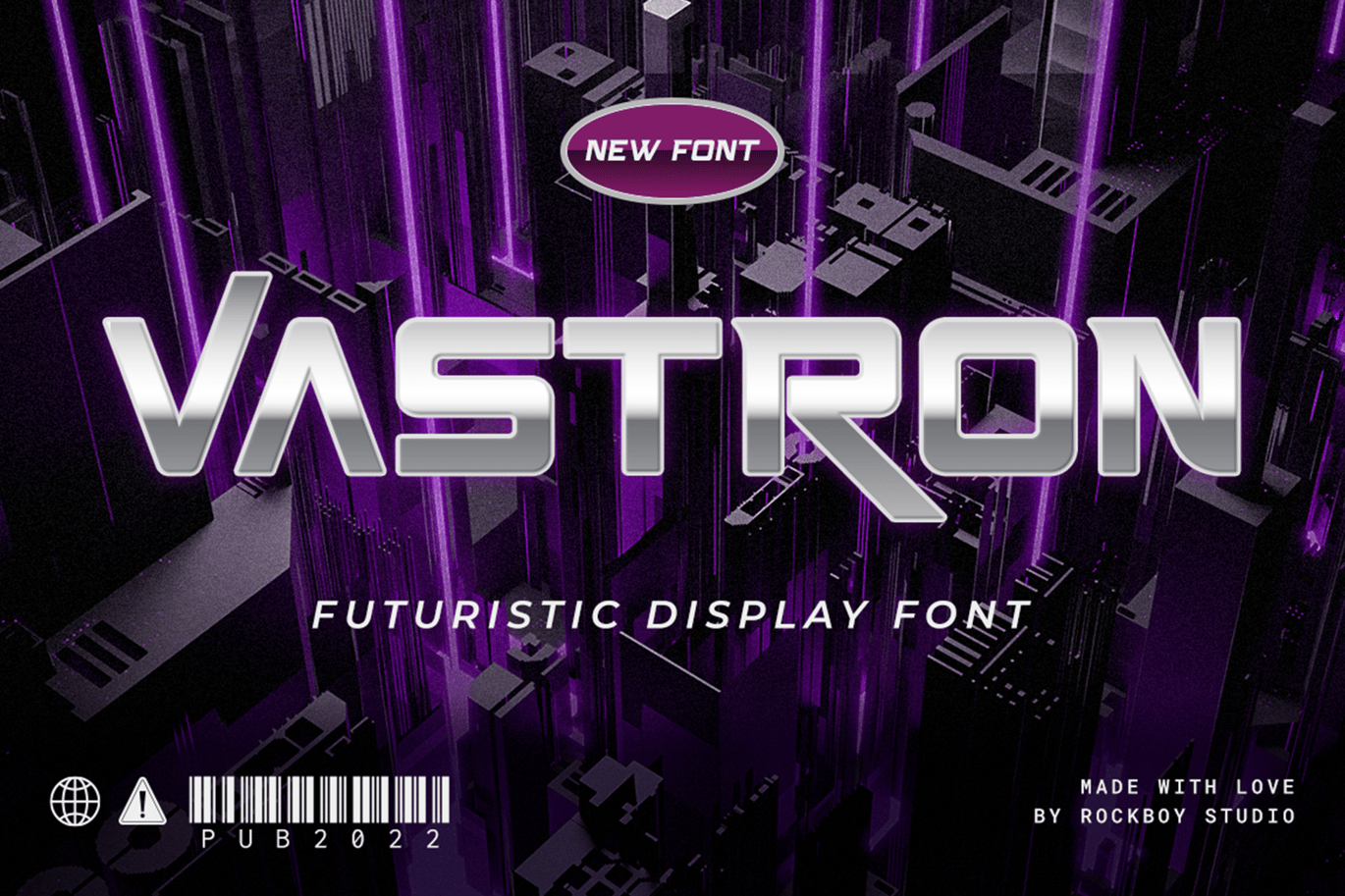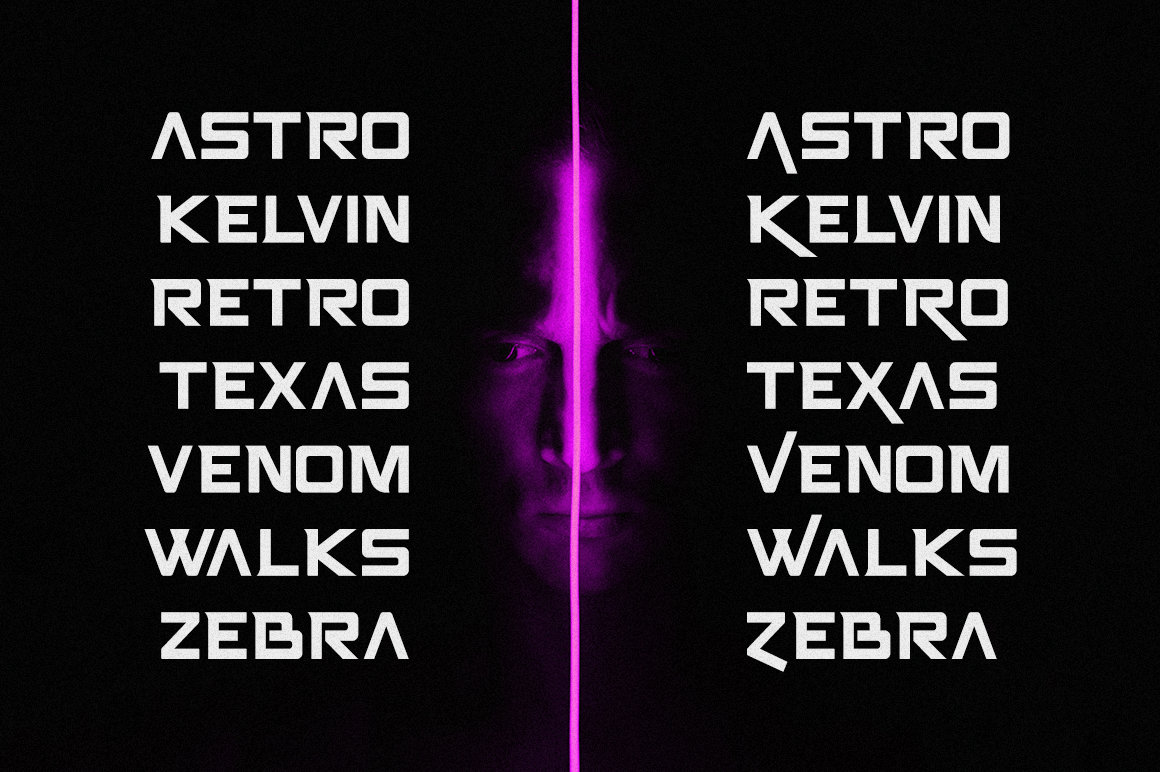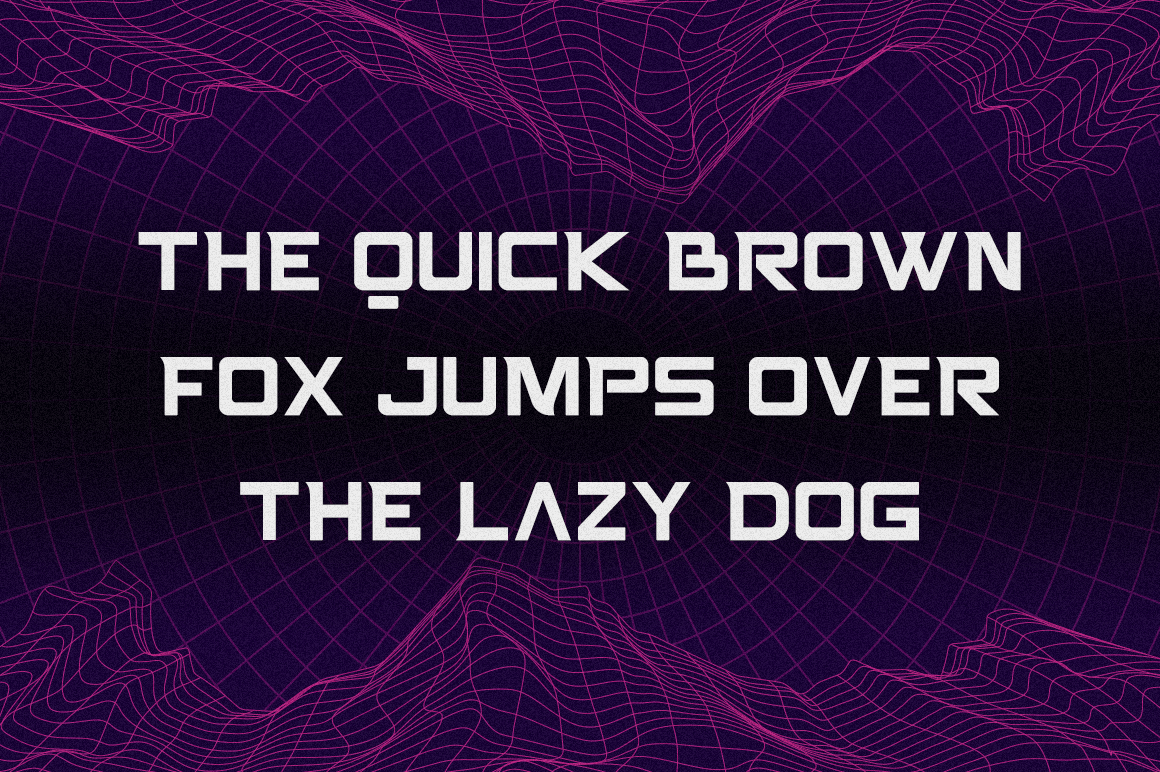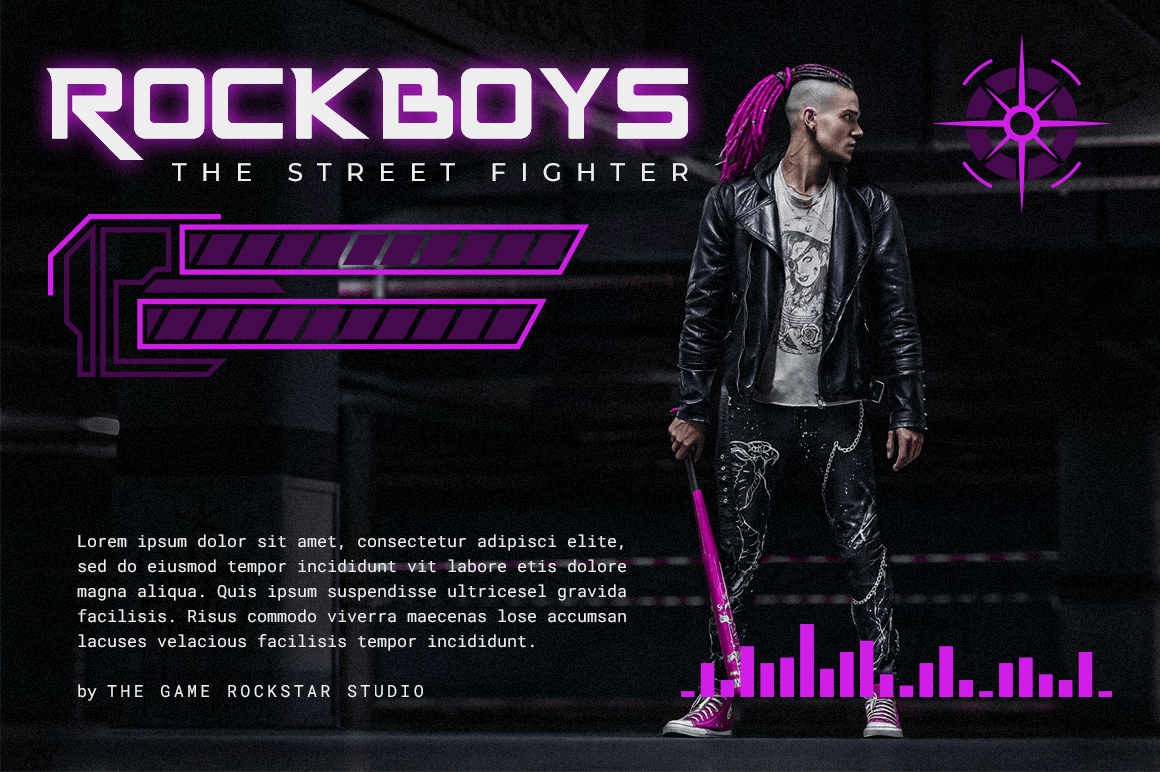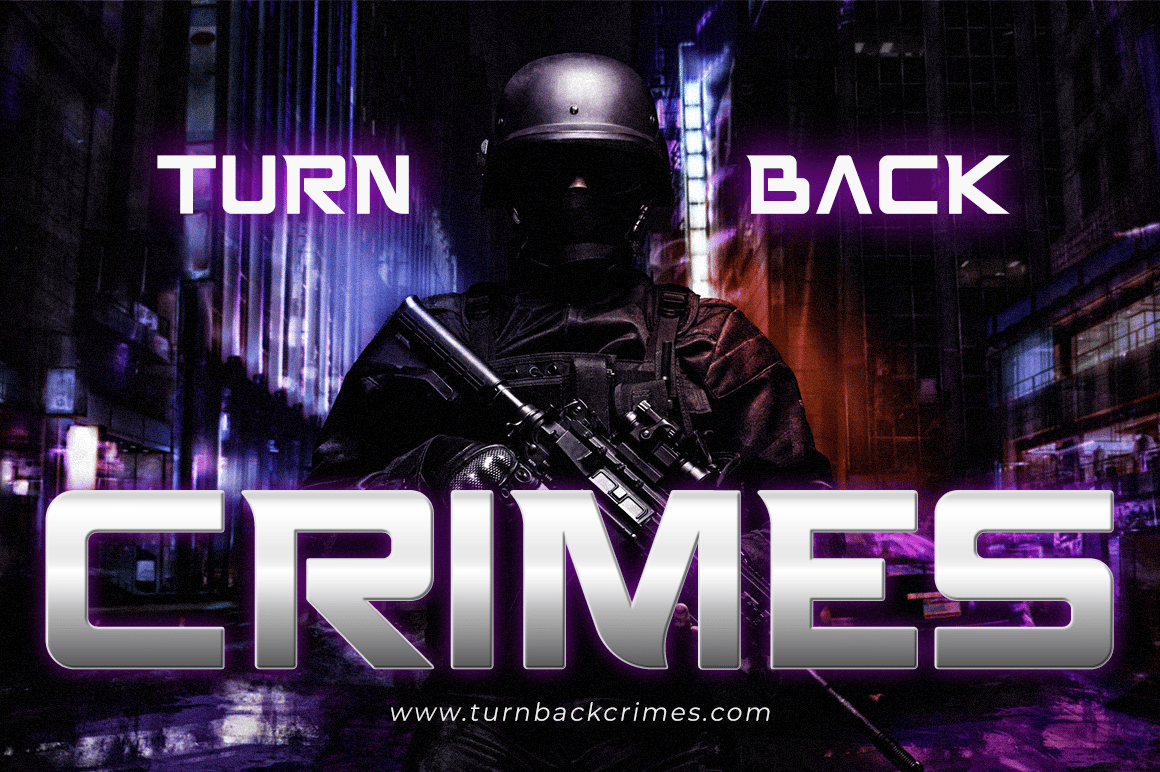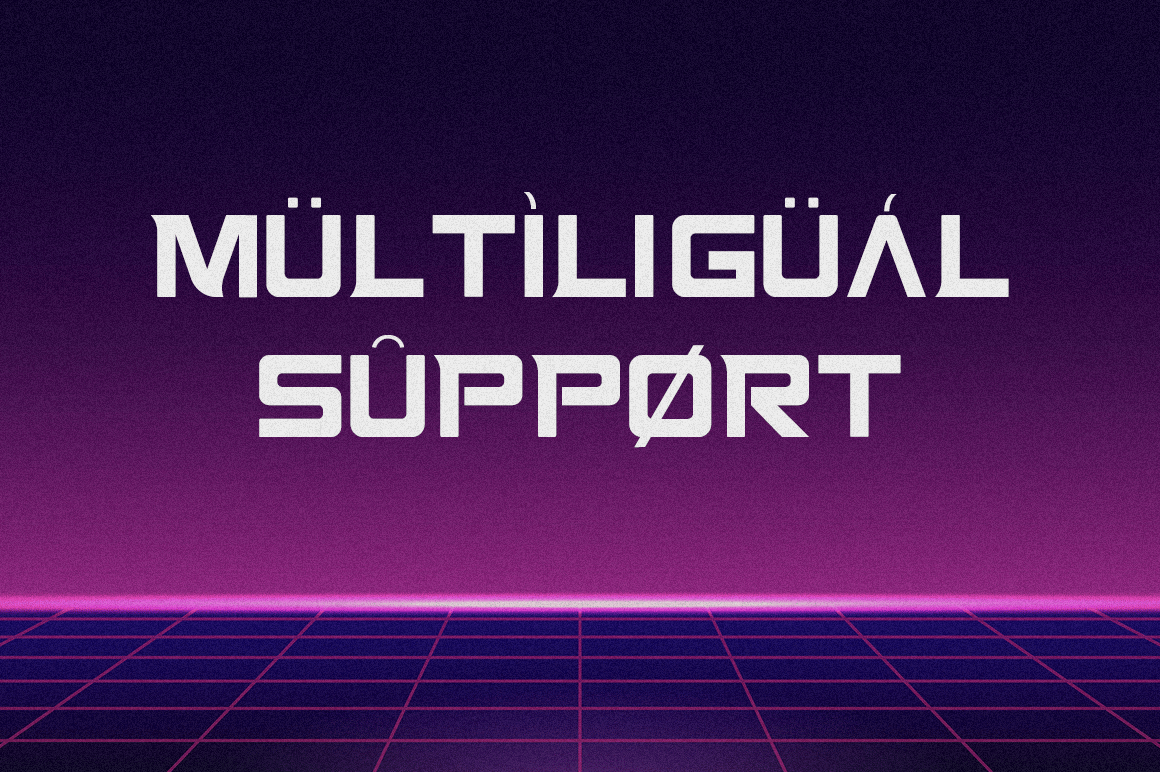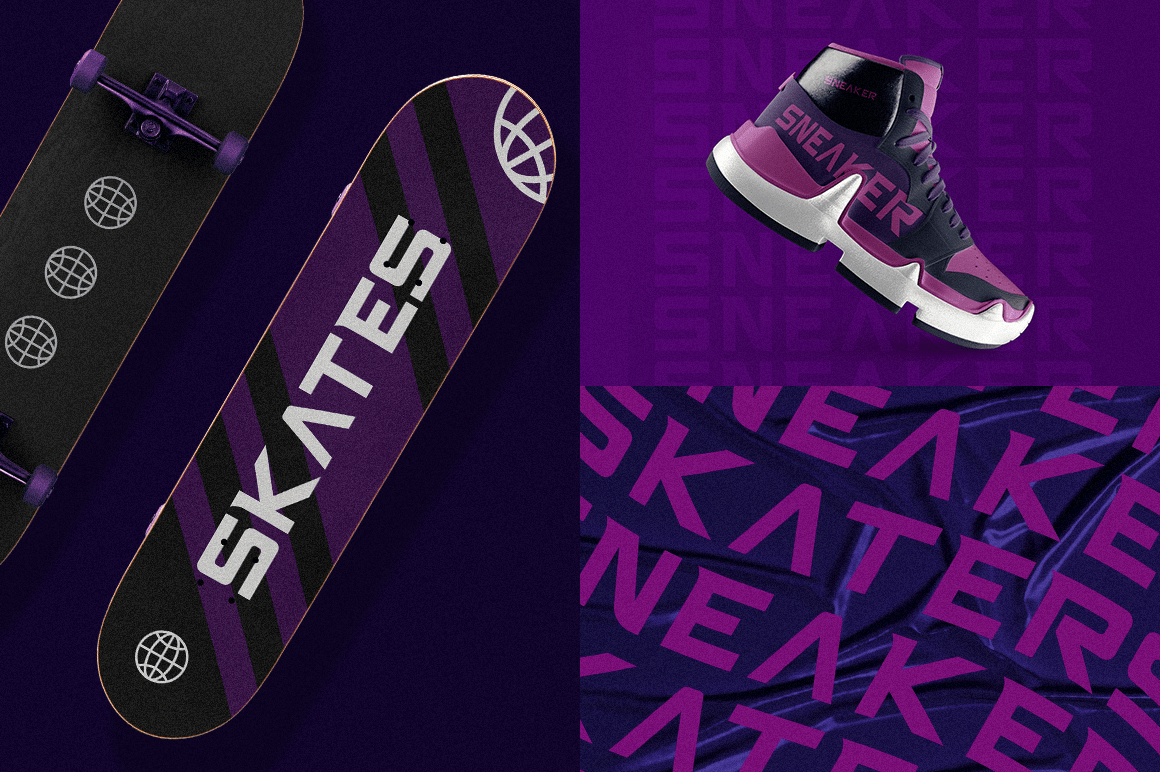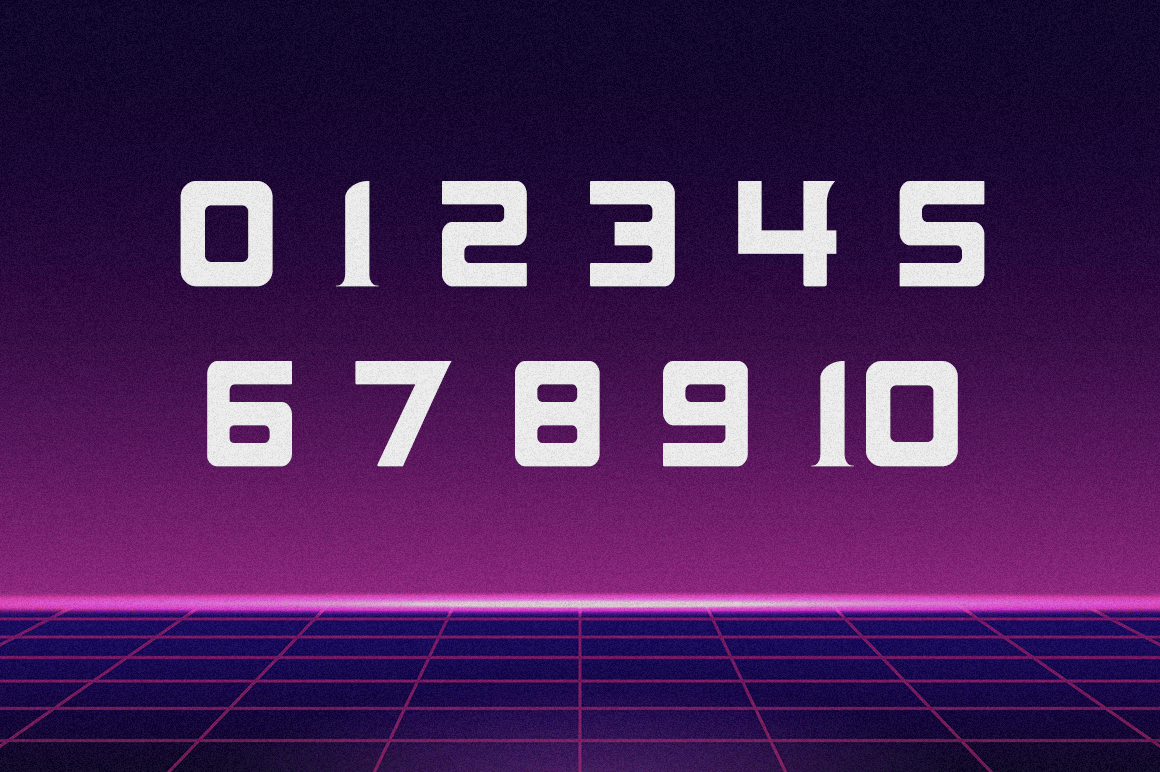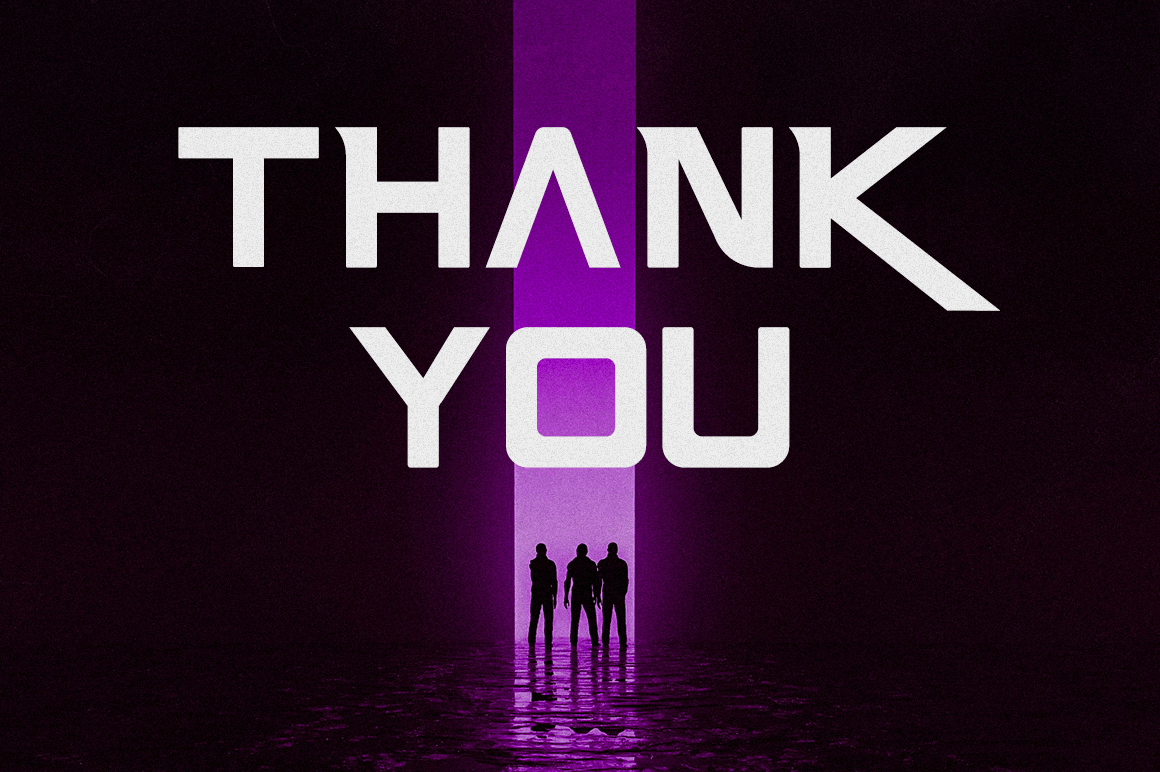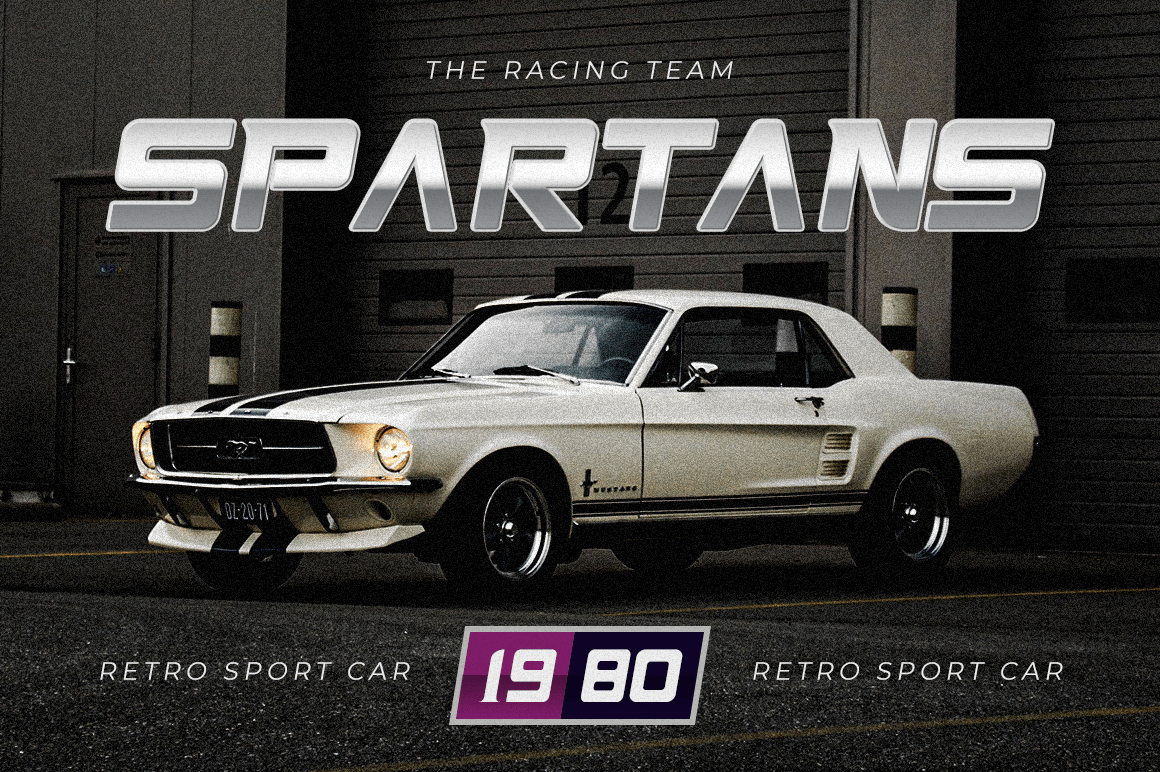
Vastron – Logo Font
Vastron is a cool, bold and thick lettered sans serif font. It will elevate a wide range of crafting ideas, from cards to branding, labels, and many more. Add it to any of your creative projects, and make them extraordinary!